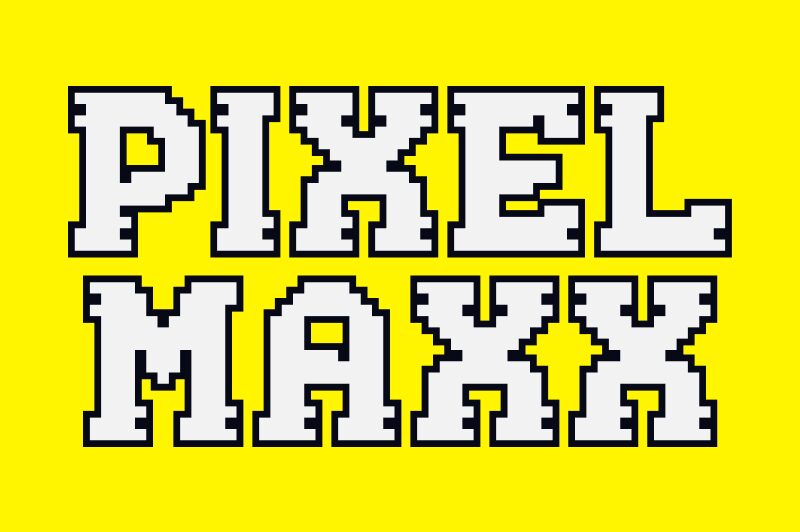
Pixelmax, a new free bitmap font with a pixelated texture. It’s created by Fitrah Type and is very useful in creating different media.
With many uppercase and lowercase characters, numbers, punctuations and special symbols, Pixelmax is suitable for all your needs. This bold typeface will not be an odd choice for logo design, poster design, headlines of video games and animations, video thumbnails, websites, etc. Use Pixelmax for personal projects; it’s perfect to represent an old retro, classic and modern gaming era.